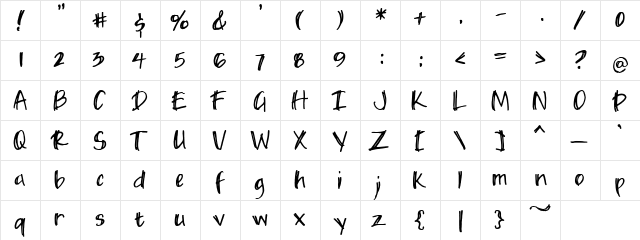
PC Splinters Regular
Design Context for PC Splinters Typeface
PC Splinters is a composed and adaptable typeface that performs quietly and consistently across a wide range of design contexts.